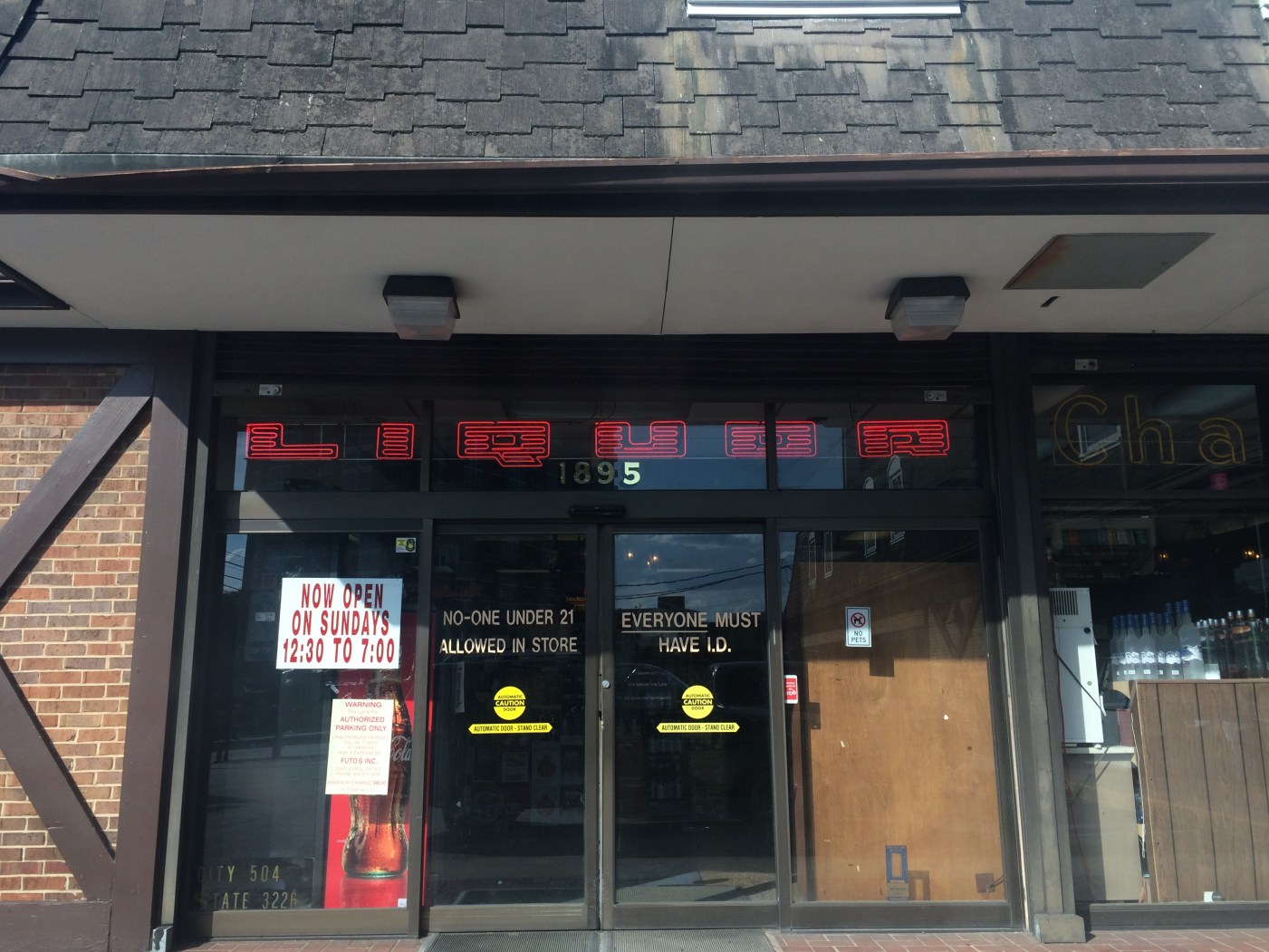
Liquor Store Neon Sign
this seems to be a pretty common sign around Atlanta, GA. I actually have a neon sign maker friend and he said he thinks it was a font developed to create high visibility while staying within height and width parameters set but the city for alcohol sales signage, but he did not know if it had a name or a full alphabet. But there does seem to be an italics variation. Any help is much appreciated.
Interesting story, if true! :happy:
I doubt we will find a font they used though. A digital computer font wouldn’t be much help to create these signs and so I doubt they exist. But maybe some designer will or has created a font like this inspired by those sign. That’s more likely.